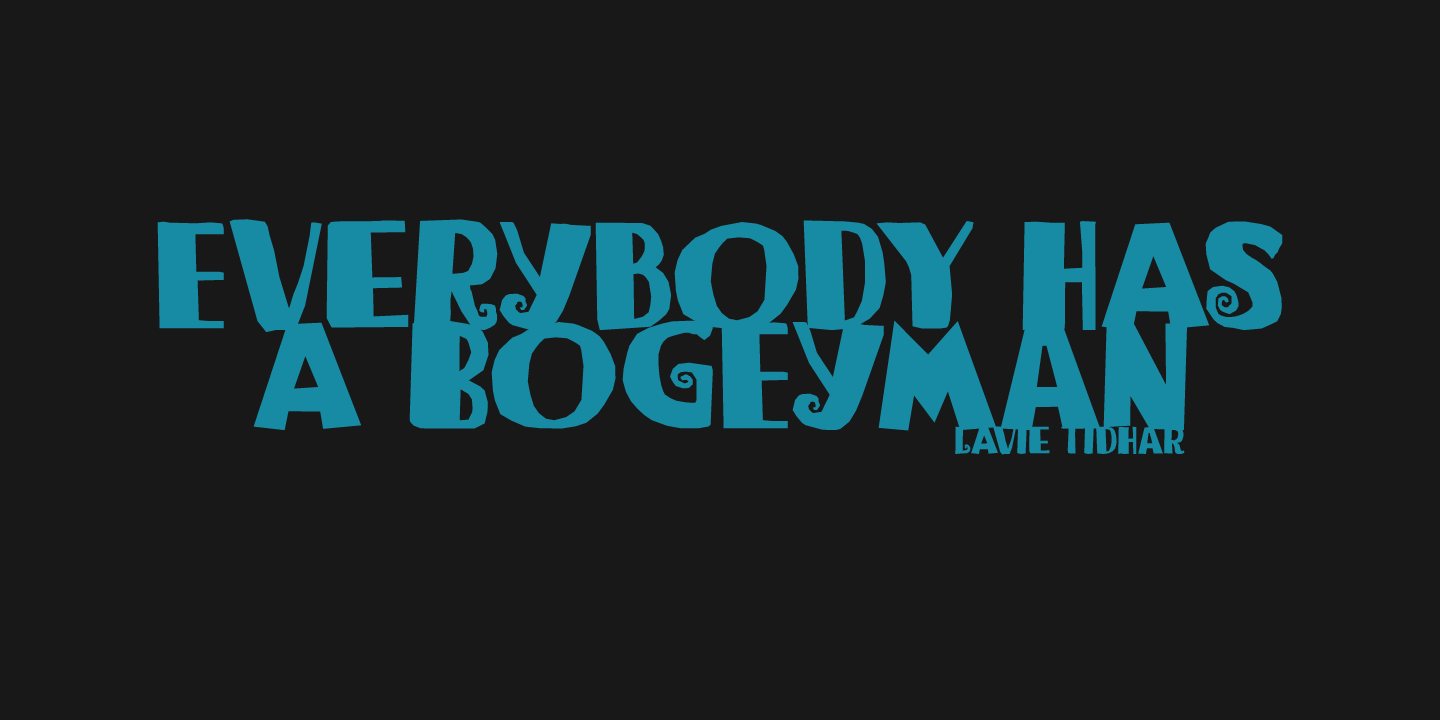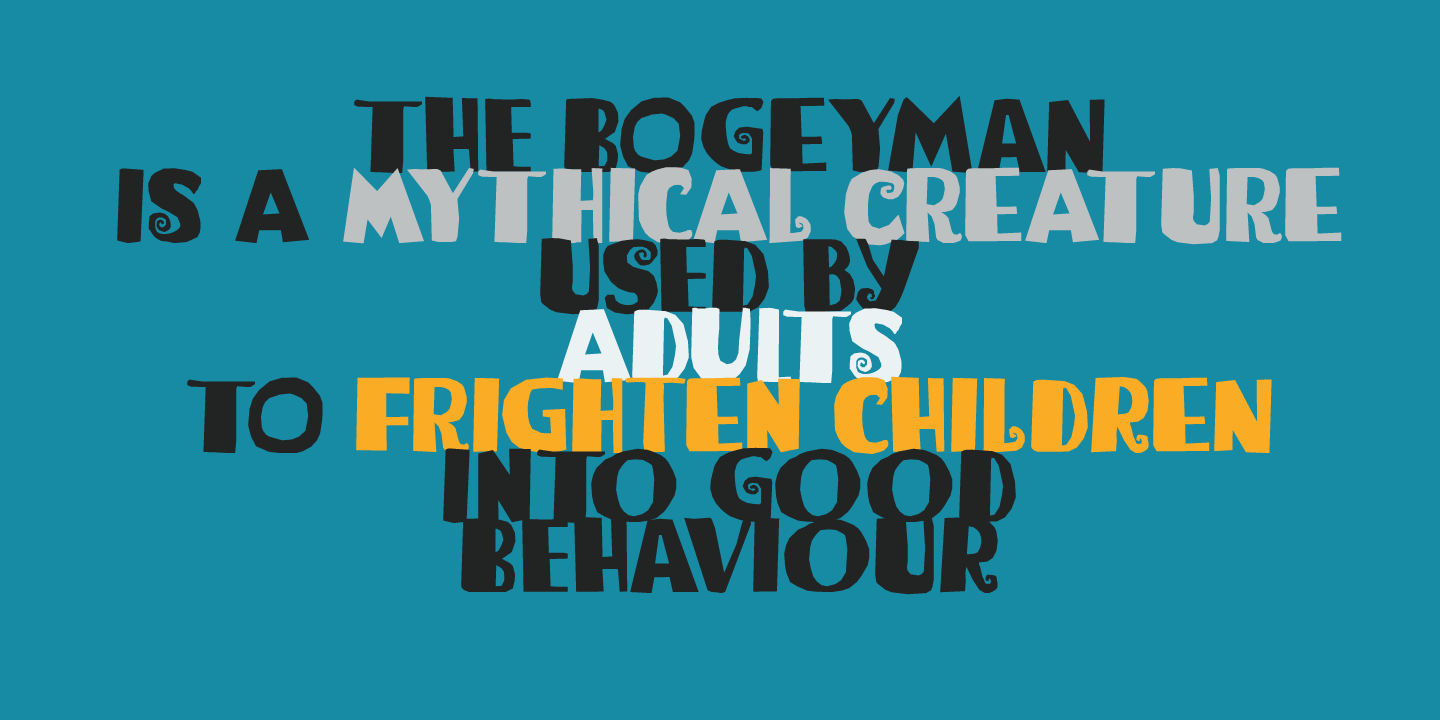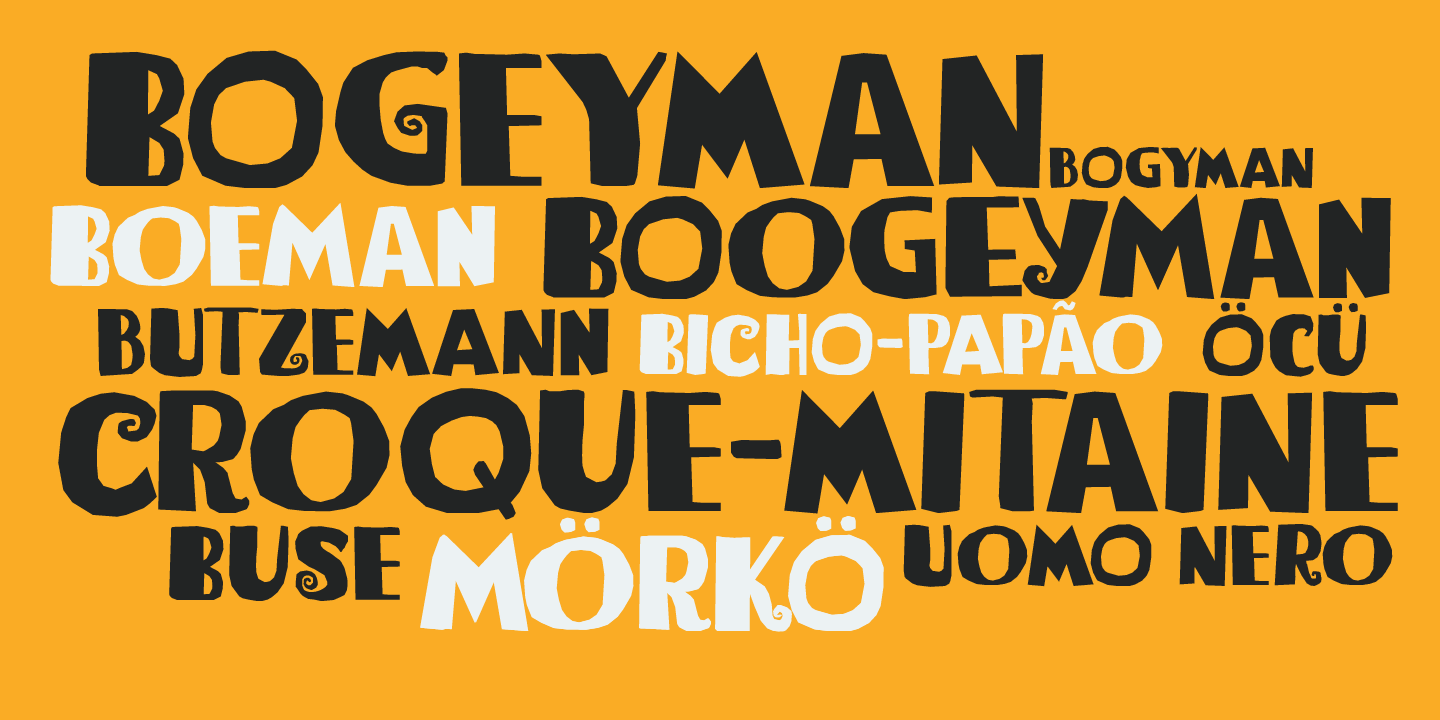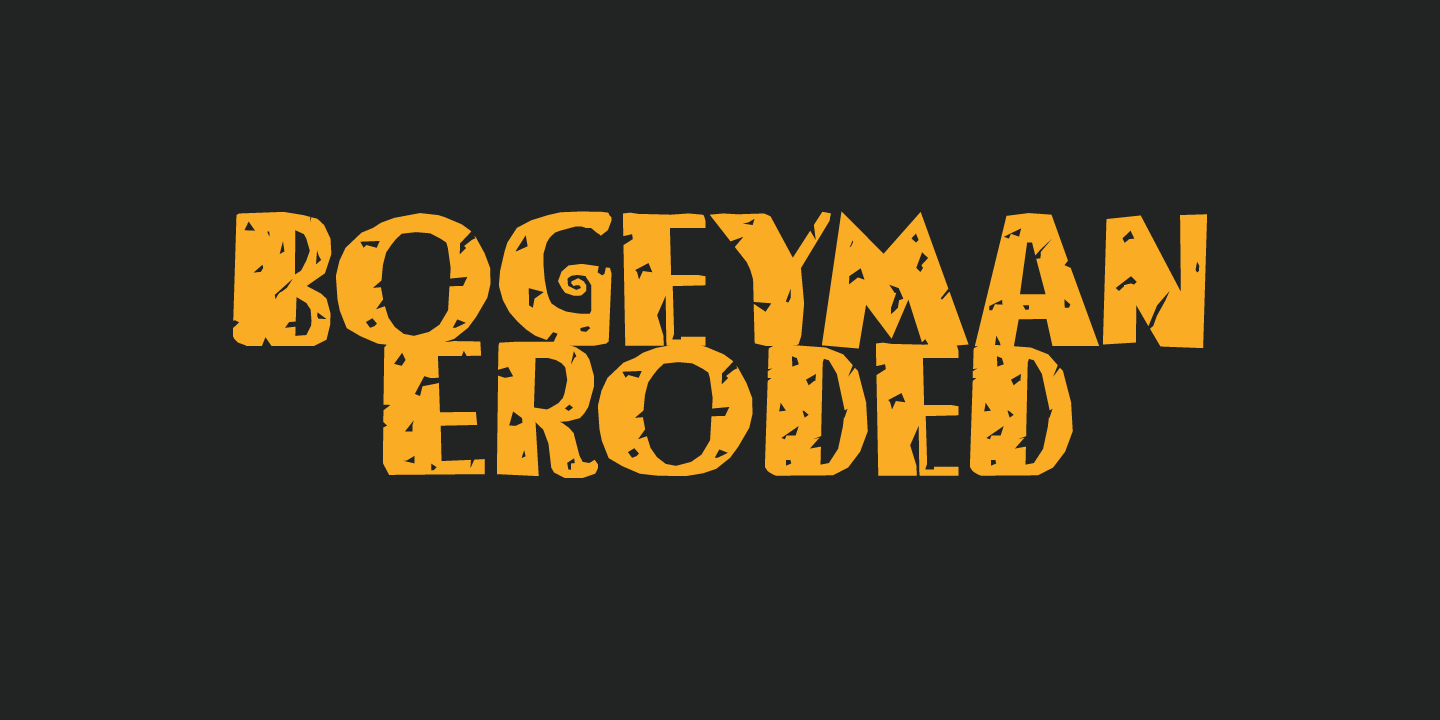
Bogeyman
I haven't been sleeping well lately: I wake up every night around 5 and I don't know why. Maybe it's the Bogeyman! Wait? Bogeyman? Excellent name for a new font!
Bogeyman is a handmade display font. It comes in two varieties: regular and eroded, both with their Italics.
Use it for your posters, book covers and packaging, but you'll have to promise not to scare your kids with it!